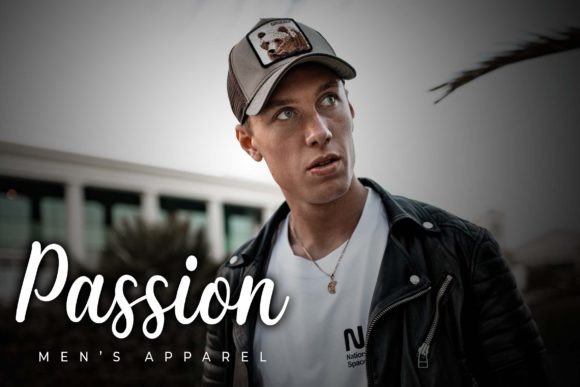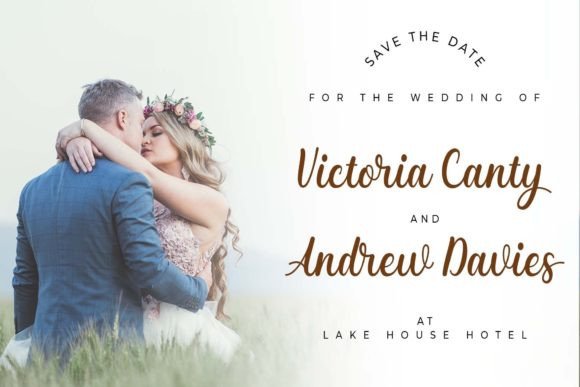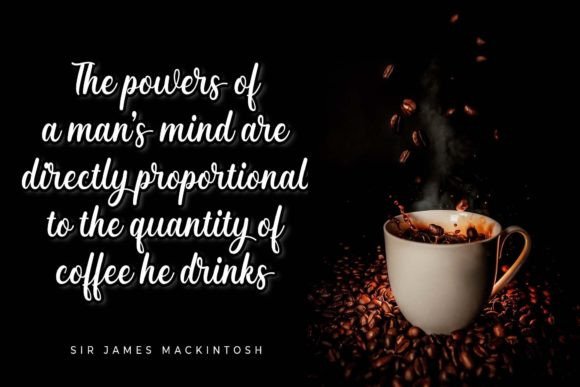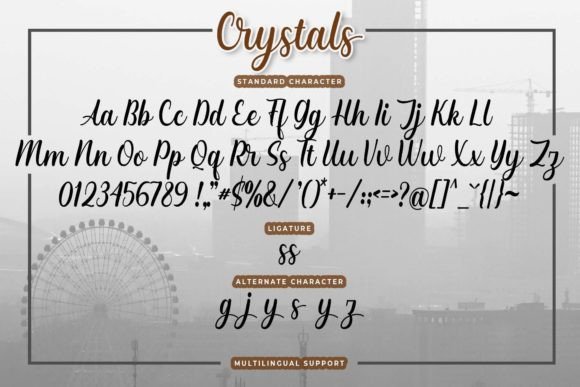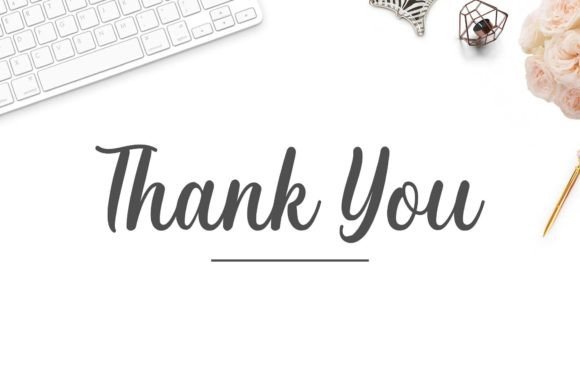
Introducing Crystals Font: Elevate Your Designs with Elegance and Sophistication
In the world of typography, few fonts manage to strike a balance between elegance and modernity. Crystals Font is one such exceptional typeface that brings a touch of timeless sophistication to your designs. Inspired by classic calligraphy, Crystals boasts a contemporary atmosphere and impeccable form, making it an ideal choice for designers and crafters looking to add a dash of luxury to their projects.
The Essence of Crystals Font
Crystals is an elegant script font that walks the fine line between being not too thin and not too thick. This thoughtful design ensures that the font exudes refinement without compromising on readability or aesthetic appeal. Whether you’re working on a branding project, packaging, or any form of visual communication, Crystals Font is poised to enhance the beauty of your creations.
One of the standout features of Crystals Font is its PUA (Private Use Area) encoding. This means that users can access all glyphs and swashes with ease, offering a wide range of creative possibilities. The PUA encoding allows designers to unlock the full potential of the font, making it incredibly versatile for various applications. Whether you’re looking to add a personal touch or aiming for a more elaborate design, Crystals Font provides the flexibility you need.
Inspiration from Timeless Classics
Crystals Font draws its inspiration from timeless classic calligraphy, bringing a sense of enduring elegance to the table. The design meticulously captures the fluidity and grace of traditional calligraphic scripts, while infusing them with a modern twist. This blend of old and new ensures that Crystals remains relevant and appealing to contemporary tastes, making it a valuable asset for any designer looking to create distinctive and memorable work.
The versatility of Crystals Font makes it suitable for a wide array of projects. From luxury branding and high-end product packaging to elegant stationery and artistic endeavors, this font can elevate any design. Its sophisticated appearance ensures that it pairs well with a variety of themes and styles, allowing designers to experiment and push the boundaries of their creativity.
Why Choose Crystals Font?
- Elegant and Modern: Crystals offers the perfect blend of elegance and modernity, making it ideal for designs that require a touch of sophistication.
- Versatile: With its PUA encoding, Crystals provides access to a wide range of glyphs and swashes, offering endless creative possibilities.
- Readable and Aesthetic: The balanced thickness of the font ensures it’s both readable and aesthetically pleasing, suitable for various applications.
- Inspired by Timeless Classics: Crystals brings a sense of classic elegance to modern designs, ensuring they stand out with a unique character.
Crystals Font is a remarkable addition to any designer’s toolkit. Its elegant script, contemporary feel, and impeccable form make it a standout choice for projects that demand a high level of sophistication. With its PUA encoding for easy access to glyphs and swashes, Crystals offers not only aesthetic appeal but also versatility and creative freedom. Whether you’re a professional designer or a crafting enthusiast, Crystals Font is poised to elevate your designs, bringing a touch of timeless elegance to your work.
Discover the potential of Crystals Font and let it be the key to unlocking a new level of elegance and sophistication in your designs.